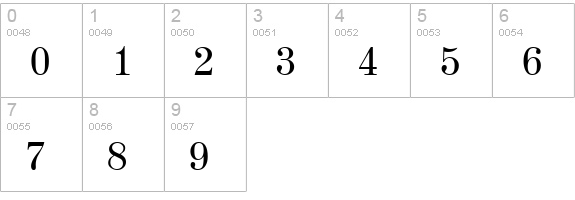
Magazine-Regular is the standard, neutral variant in the Magazine typeface family \xE2\x80\x94 well suited to general body text, paragraphs, and standard typographic work.
Introducing Magazine-Regular font, a versatile typeface that exudes elegance and sophistication. This classic font is perfect for a wide range of design projects, from editorial layouts to branding materials. With its clean lines and modern aesthetic, Magazine-Regular font effortlessly combines tradition with contemporary style. And the best part? Magazine-Regular font is available for free download at FontsMarket.com! Whether you're a seasoned designer or just starting out, this font is a must-have in your collection. Its readability and timeless appeal make it a go-to choice for any creative project. Embrace the charm and versatility of Magazine-Regular font today and elevate your designs to the next level.